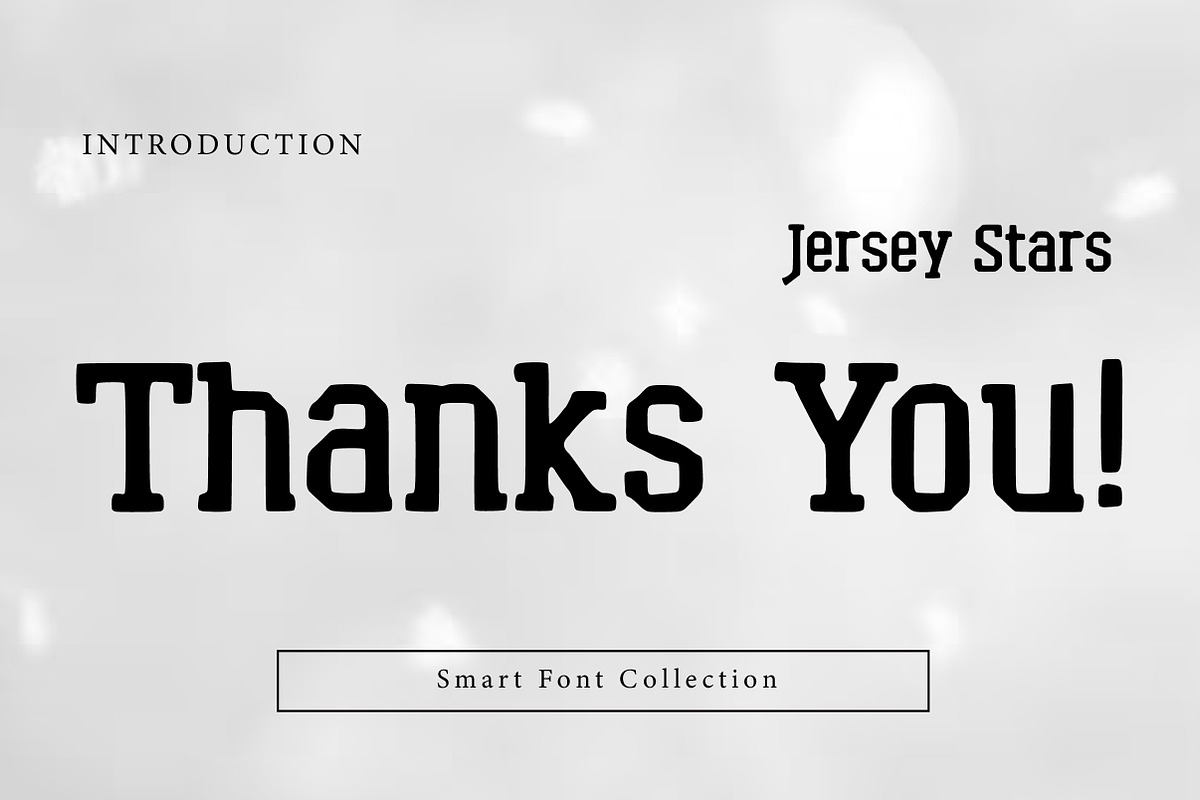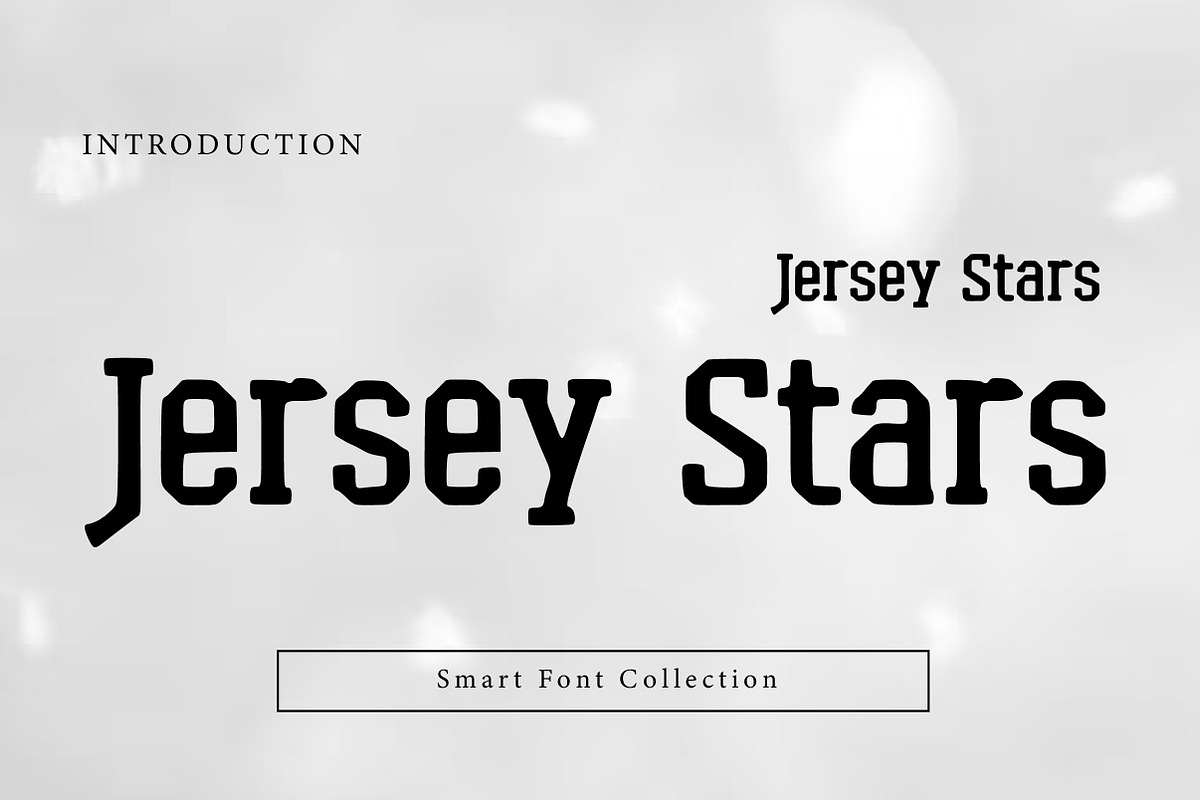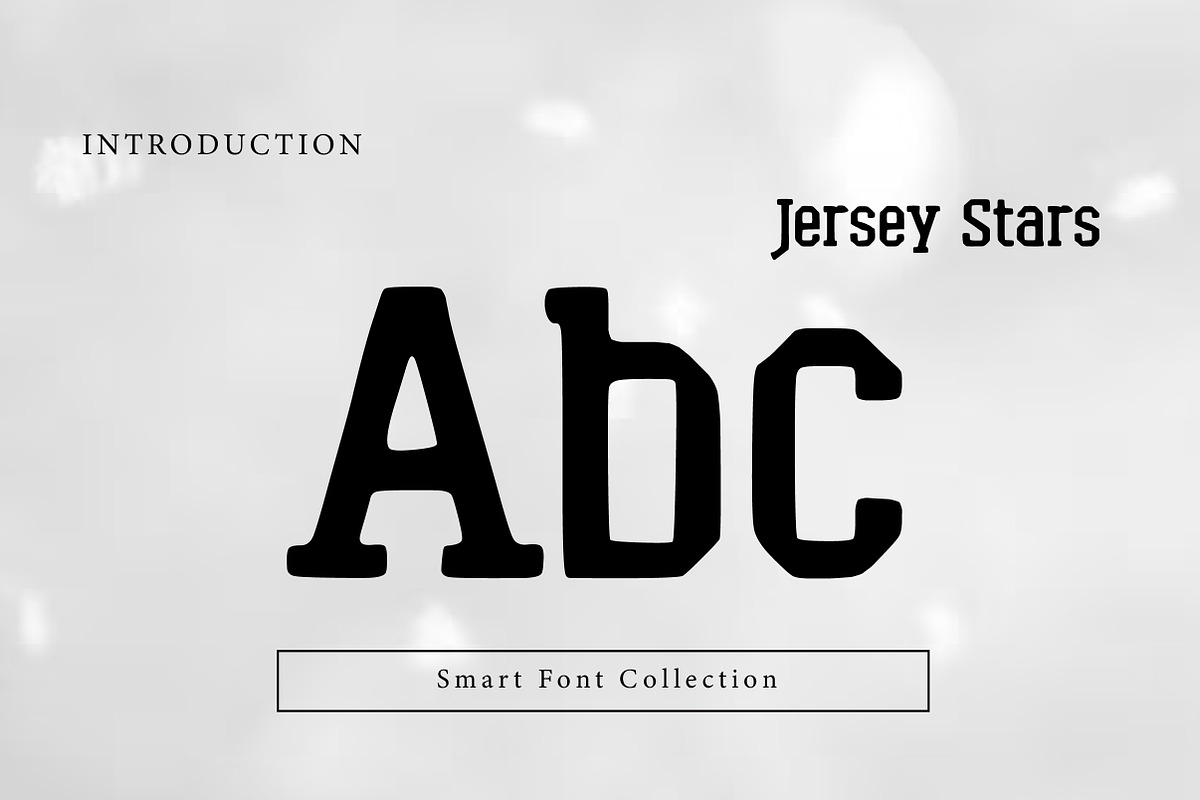
Jersey stars
Jersey Stars is a bold, sporty varsity/athletic display font inspired by classic jersey lettering. With strong block shapes, clean cuts, and a confident game-day feel, it’s perfect for team logos, jersey names, numbers, sports posters, tournaments, school apparel, score graphics, and athletic branding. Jersey Stars delivers high impact and excellent readability for competitive, energetic designs.